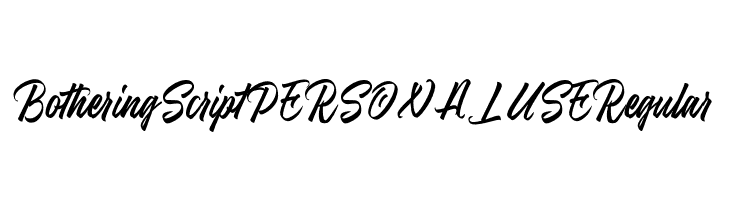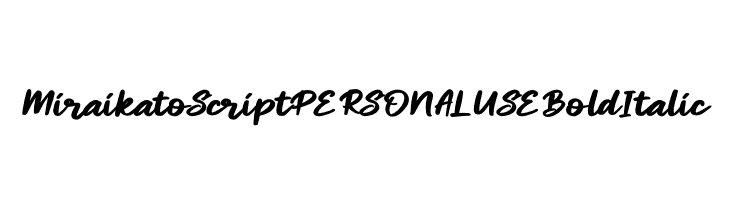
( Fonts by Ardyana Putra )
A lively, handwritten script font with fluid, connected strokes.
An elegant script font with flowing, cursive style and intricate flourishes.
( Fonts by Dayan Marquina )
A playful and whimsical script font with fluid, cursive strokes.
( Fonts by Runes & Fonts )
A flowing, cursive script with elegant, connected letters.
( Fonts by Tomasz Skowroński )
A bold, cursive script font with elegant, flowing strokes.
A playful and whimsical script font with decorative loops and elegant flourishes.
( Fonts by MADE Type )
A playful script font with smooth, flowing lines and a whimsical, handwritten style.
( Fonts by Chris Vile )
A bold, gothic-inspired script font with intricate, thorn-like details.
A flowing, cursive script font with elegant loops and swashes.
A flowing, elegant script font with interconnected letters and a modern twist.
An elegant script font with decorative swirls and a whimsical style.
A graceful script font with flowing cursive letters and decorative swashes.
An elegant script font with flowing, interconnected characters and a sophisticated style.
An elegant script font with flowing, cursive letterforms and decorative swashes.
An elegant script font with intricate, flowing lines and high contrast, ideal for sophisticated designs.
( Fonts by Måns Grebäck )
An elegant and flowing script font with ornate, decorative letterforms.
( Fonts by Måns Grebäck )
An elegant, high-contrast cursive script with ornate swashes and flourishes.
( Fonts by Yasir Ekinci )
A playful and elegant script font with smooth, flowing curves.
A dynamic and flowing script font with elegant, cursive letterforms.
A dynamic script font with elegant, flowing curves and a slight slant.
A graceful and elegant script font with flowing, cursive letters.